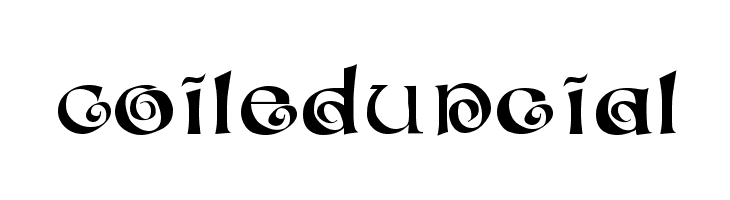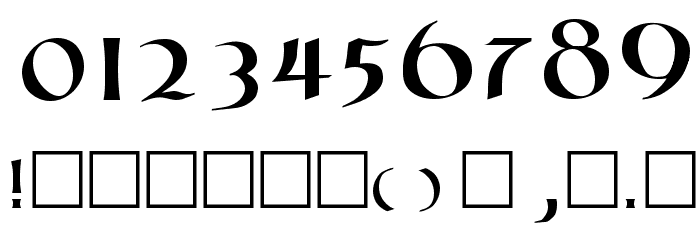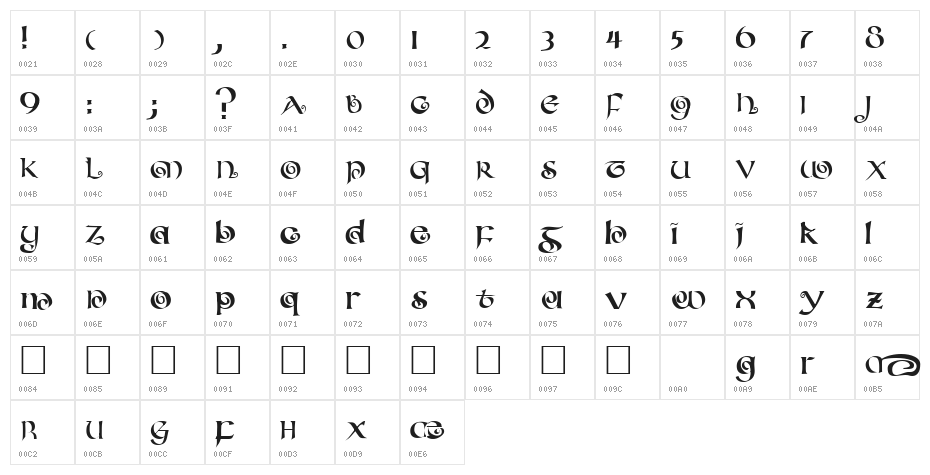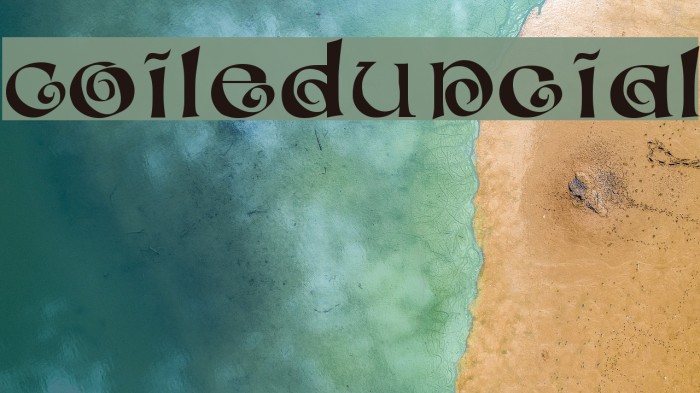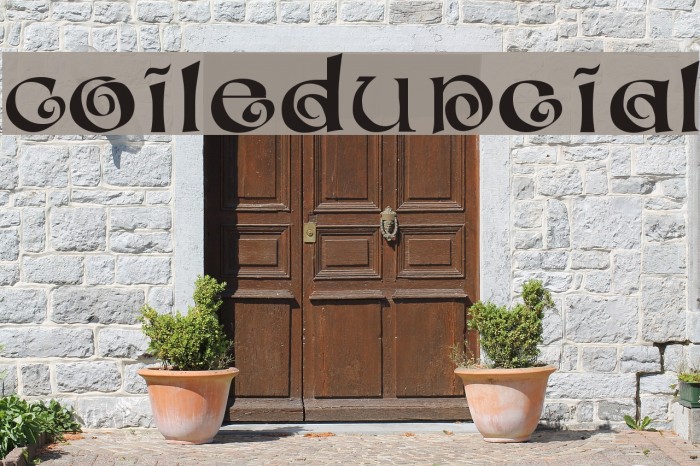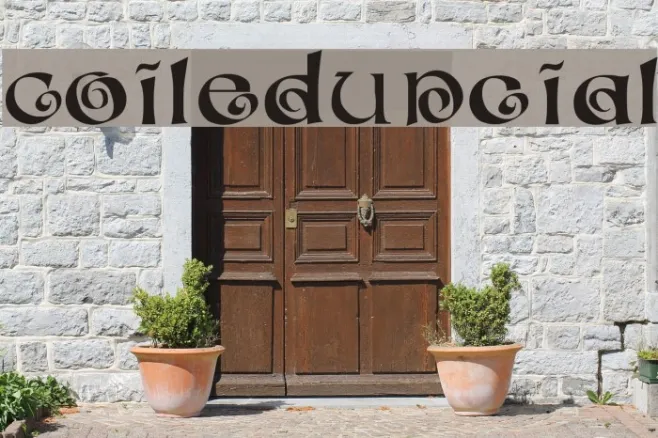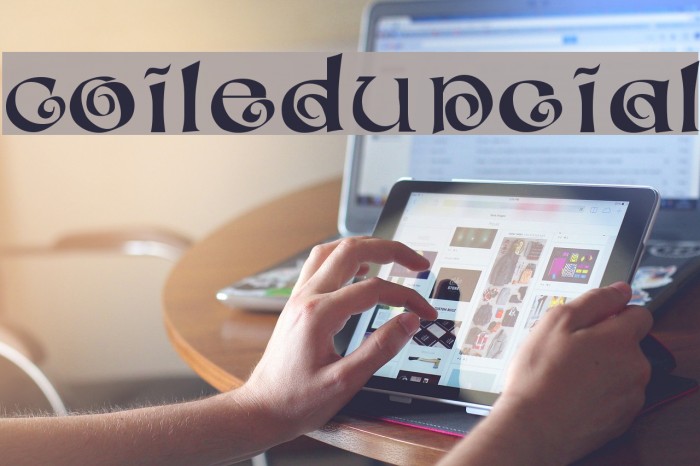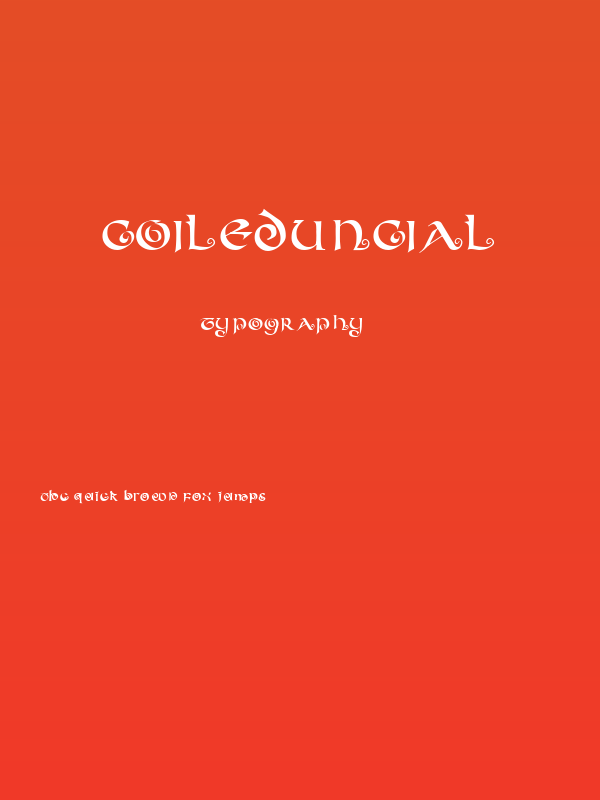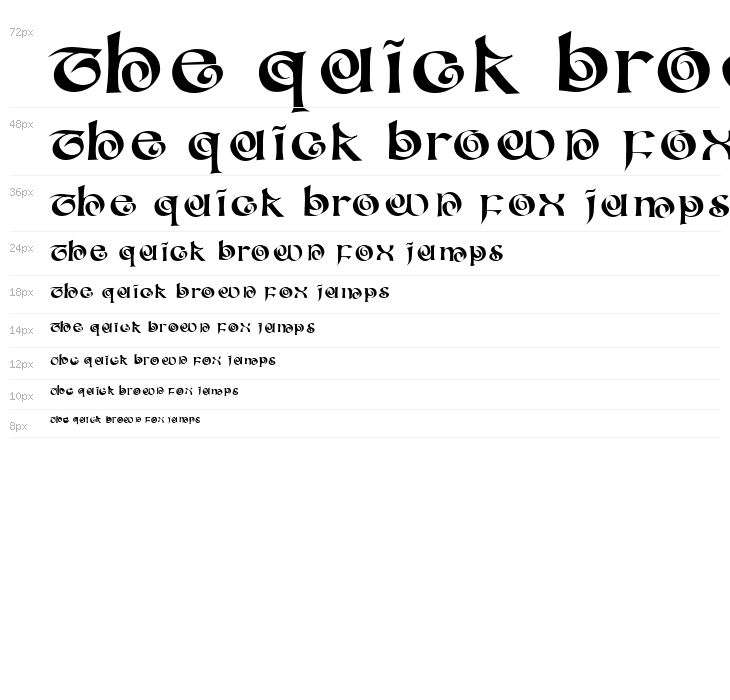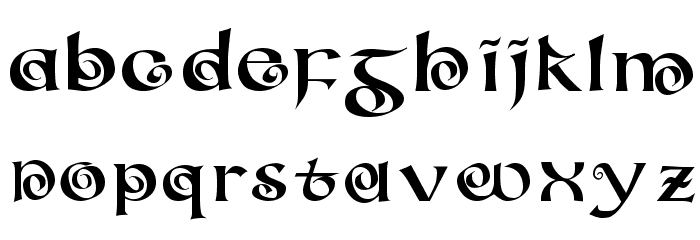
CoiledUncial Font
CoiledUncial Description
This font features a unique and artistic design, characterized by its coiled and swirling elements that give it a distinct medieval or fantasy feel. The uppercase letters are particularly ornate, with exaggerated curves and loops that create a sense of movement and fluidity. The lowercase letters maintain this decorative style but are slightly more restrained, ensuring readability. The numerals are consistent with the overall aesthetic, featuring similar curves and embellishments. Special characters are designed to match the font's whimsical and elaborate style, making it suitable for creative and thematic projects.
Proposed ProjectsIdeal for fantasy-themed designs, book covers, posters, and invitations where a touch of whimsy and elegance is desired.